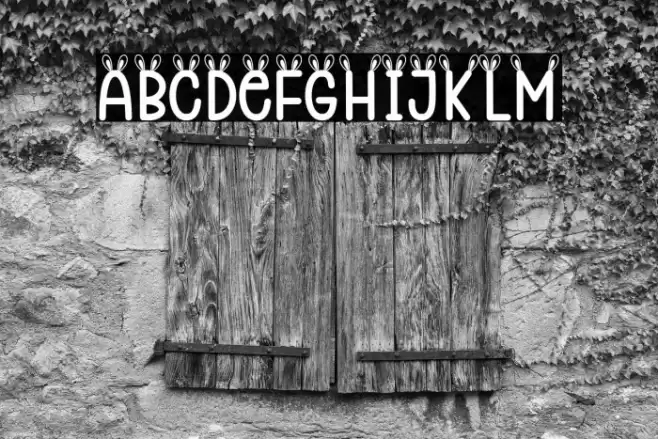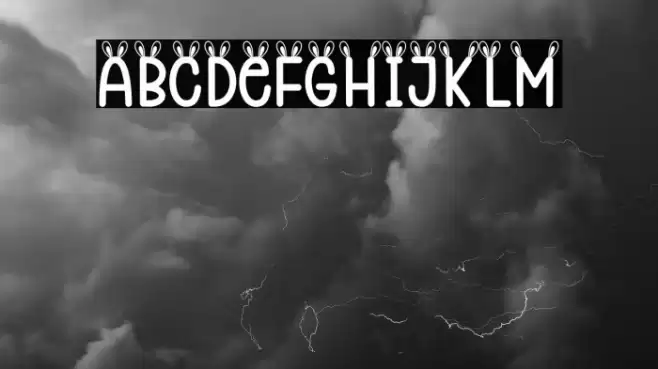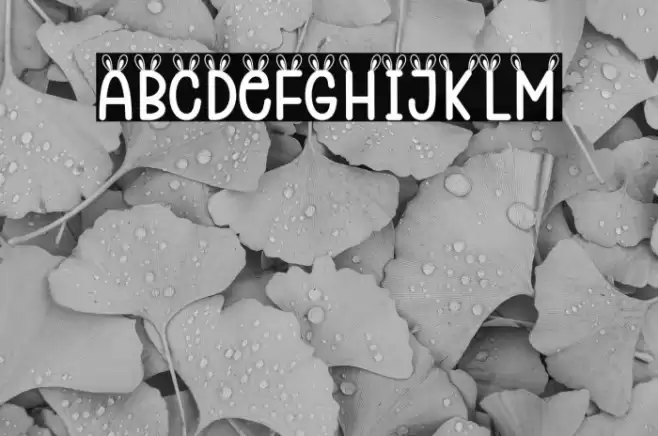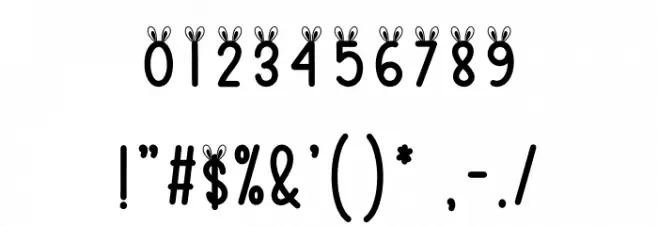
Rabbit Ears Font
Rabbit Ears Description
This playful and whimsical font features unique decorative elements resembling rabbit ears atop each character, adding a touch of fun and creativity. The letters are bold and rounded, providing a friendly and approachable appearance. The consistent use of the rabbit ear motif across all characters, including numbers and special symbols, creates a cohesive and thematic design. This font is perfect for projects that require a lighthearted and imaginative touch, making it ideal for children's books, playful branding, or festive invitations.
A whimsical font with rabbit ear decorations on each character, perfect for playful designs from Easter fonts.
- Proposed Projects: Ideal for children's books, playful branding, festive invitations, and creative posters.